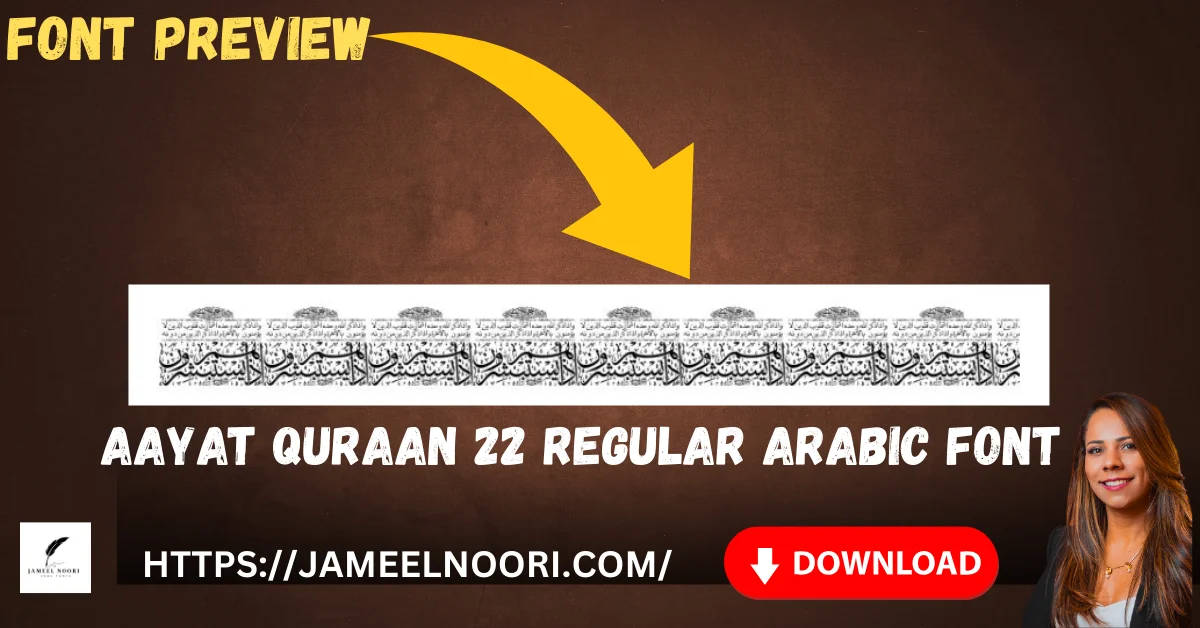
Aayat Quraan 22 Regular Arabic Font is a highly popular and beautifully designed Quranic typeface used widely in Pakistan for Urdu and Arabic calligraphy. This elegant font is perfect for designers, students, Naskh-style calligraphy lovers, and those who want to create visually accurate Quranic text. It has been downloaded over 5728 times, and 100+ users have rated it 3.98/5, proving its popularity among Arabic font users in Lahore, Karachi, Islamabad, and across Pakistan.
What Makes Aayat Quraan 22 Regular True Type Arabic Font Special?
The Aayat Quraan 22 Regular Arabic Font stands out because of its smooth strokes, readability, and professional Quranic calligraphy style. Many users prefer this font because it closely resembles traditional handwritten Arabic designs. It is also lightweight, easy to install, and works perfectly with Urdu fonts, Arabic fonts, and other TrueType formats. The font’s expert-level detailing makes it an excellent choice for designers who want a clean and authentic look.
Features of Aayat Quraan 22 Regular Arabic Font
The Aayat Quraan 22 Regular Arabic Font offers several impressive features that enhance user experience. The calligraphy is highly precise, making it suitable for professional design projects. It includes standard Arabic ligatures, ensuring smooth text flow. The font contains optimized kerning, helping users maintain balanced spacing for headings or long paragraphs. It is compatible with major editing tools such as InPage, Photoshop, Illustrator, CorelDraw, and MS Word.
- Smooth and clean Quranic calligraphy
Character Map of Aayat Quraan 22 Regular Arabic Font
The Aayat Quraan 22 Regular Arabic Font has a detailed and well-designed Character Map. Every letter is crafted in a traditional Naskh handwriting style, making the font ideal for Islamic books, posters, social media posts, and educational content. By exploring the Character Map, users can understand how each letter connects gracefully. This helps in achieving more accurate and aesthetic Arabic typography.
Table: Character Details
| Character Type | Style | Usage |
| Basic Arabic Letters | Naskh | Quranic Designs |
| Urdu Characters | Smooth | News Headlines |
| Special Marks | Clear | Tajweed Indicators |
Best Uses of Aayat Quraan 22 Regular Arabic Font in Pakistan
The Aayat Quraan 22 Regular Arabic Font is widely used for Islamic book publishing, Quranic educational material, Madrasa notes, and online Arabic lessons. Many designers in Karachi and Lahore use it to create attractive social media posts during Ramadan and Eid. The font’s professional look makes it suitable for banners, logos, and headings as well.
Conclusion – Why Choose Aayat Quraan 22 Regular Arabic Font?
The Aayat Quraan 22 Regular Arabic Font is one of the best Arabic fonts for Quranic design, Urdu calligraphy, and digital publications in Pakistan. Its clean structure, easy installation, and excellent readability make it an ideal choice for beginners and professional designers. If you are looking for a reliable and visually appealing Arabic font, this one offers outstanding quality and performance.